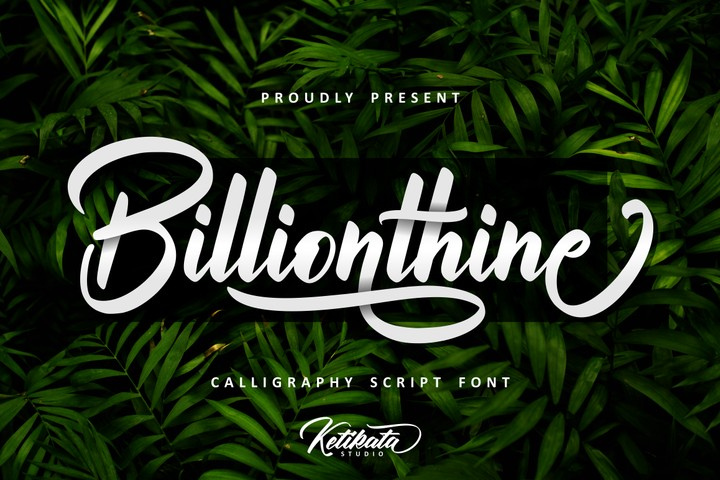
Billionthine Calligraphy Script Font
Billionthine Calligraphy Script Font is perfectly suited for luxury wedding invitations, high-end fashion branding, elegant greeting cards, premium beauty product labels, sophisticated restaurant menus, exclusive event materials, personalized stationery designs, upscale boutique signage, and refined calligraphy projects.
What makes Billionthine Calligraphy Script Font so exciting is its extraordinary opulence and calligraphic mastery that transforms ordinary text into breathtaking works of art worthy of the most exclusive occasions and luxury brands. This magnificent typeface embodies the pinnacle of script elegance with its flowing curves and ornate flourishes that seem to dance across the page with aristocratic grace and timeless sophistication. The font's exquisite character shapes and luxurious proportions create an atmosphere of unparalleled refinement and exclusivity that resonates with discerning audiences who appreciate the finest things in life. Billionthine Calligraphy Script Font stands out through its ability to convey ultimate luxury, artistic excellence, and aristocratic elegance, making it perfect for projects that need to establish the highest level of premium positioning while creating unforgettable experiences that celebrate exceptional taste and extraordinary sophistication.
The Billionthine Calligraphy Script Font family includes Regular and Bold weights, each maintaining the font's distinctive luxury calligraphy character while providing design flexibility for various opulent applications. The family also features extensive swash collections, decorative flourishes, and ornamental elements that enhance the font's aristocratic appeal and provide comprehensive solutions for the most sophisticated luxury design projects.
When you choose Billionthine Calligraphy Script Font Free Download, you're selecting a typeface that brings authentic aristocratic elegance and calligraphic artistry to your most prestigious creative projects. This font excels in creating designs that need to convey ultimate luxury, artistic mastery, and exclusive sophistication. Its magnificent calligraphic appearance makes it particularly effective for ultra-luxury brands, exclusive events, and prestigious projects that demand the highest level of elegance and artistic refinement.
The technical mastery of Billionthine Calligraphy Script Font includes an extensive character set with uppercase and lowercase letters, numerals, punctuation marks, and luxury symbols that maintain the font's opulent calligraphic character. The font incorporates advanced OpenType features including contextual alternates, stylistic sets, and connecting ligatures that create seamless script flow and authentic hand-lettered beauty throughout the most demanding luxury applications.
Whether you're designing ultra-luxury brand identities, creating exclusive event materials, developing prestigious wedding stationery, or crafting designs that require the ultimate in calligraphic sophistication and aristocratic elegance, Billionthine Calligraphy Script Font delivers the perfect combination of artistic mastery and contemporary functionality that makes your projects extraordinarily memorable and luxuriously distinguished for the most discerning audiences.